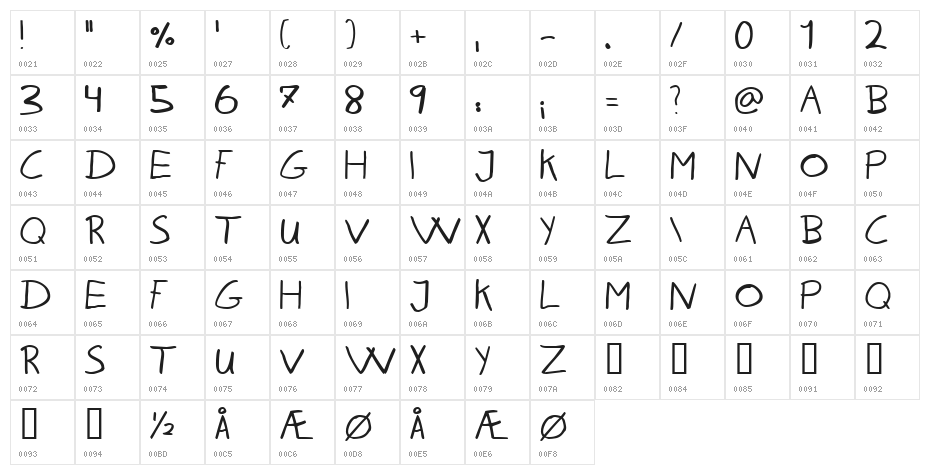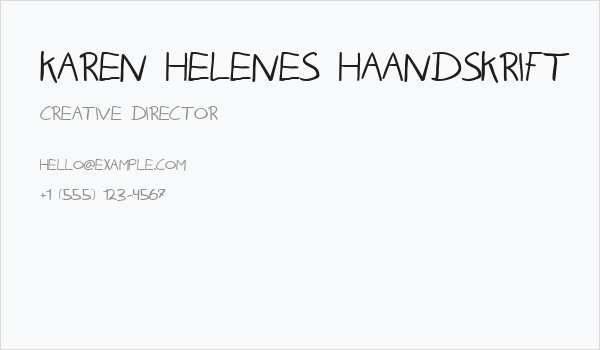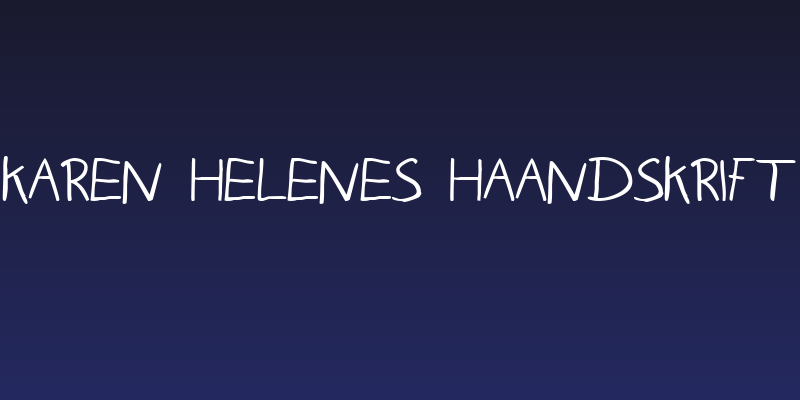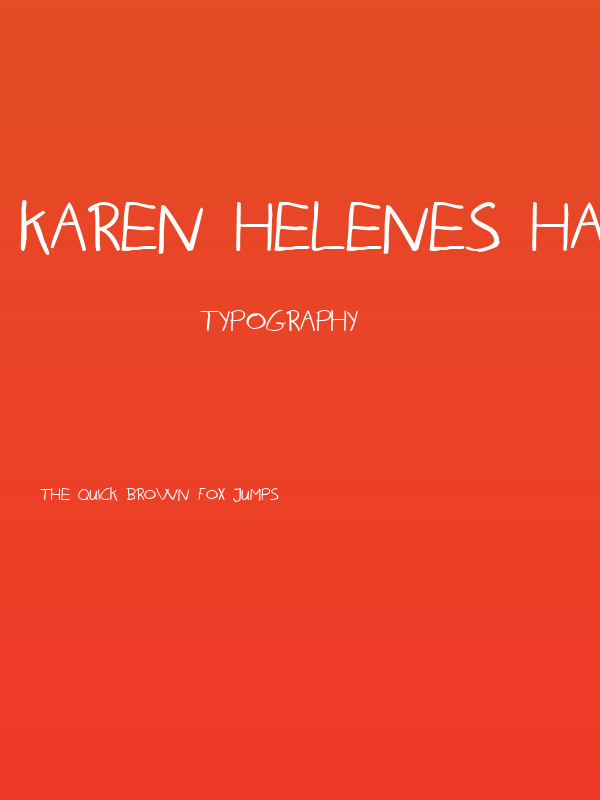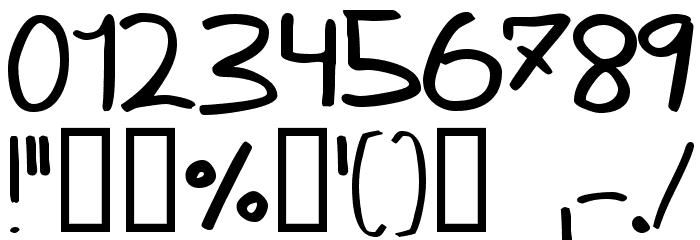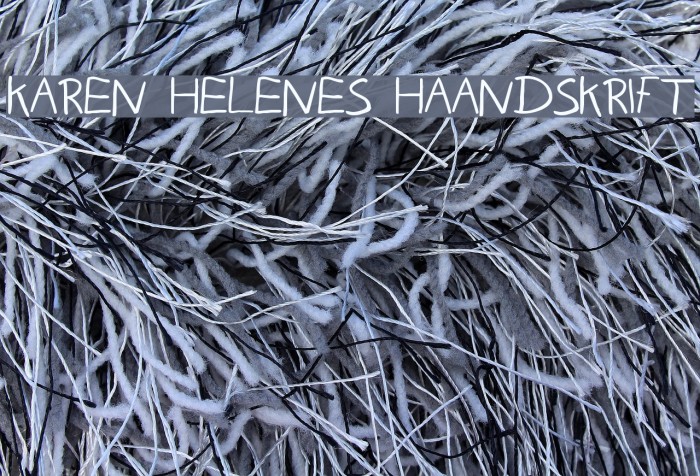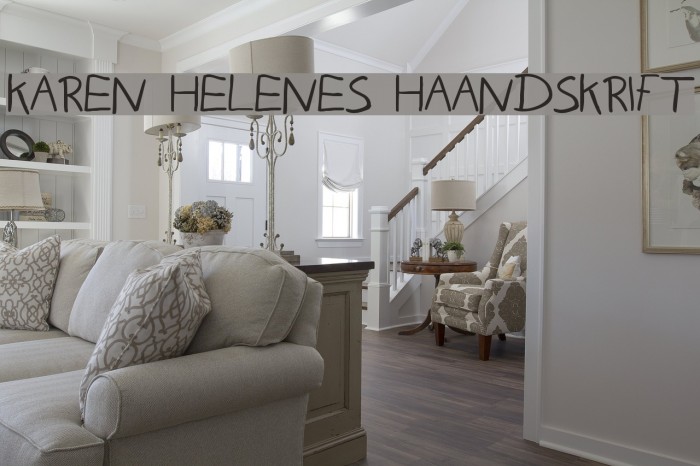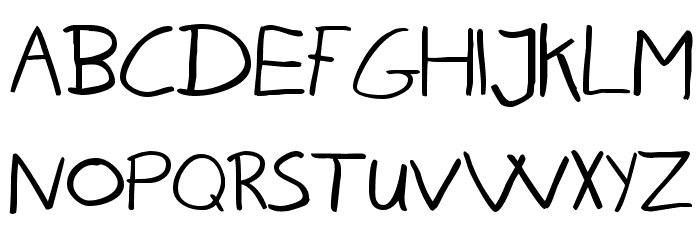
Karen Helenes haandskrift Font
Karen Helenes haandskrift Description
This font exudes a playful and casual handwritten style, characterized by its irregular strokes and slightly uneven baseline. The letters are bold and rounded, giving a friendly and approachable feel. The uppercase and lowercase letters maintain a consistent style, with a slight slant that adds to the informal appearance. The numerals are distinct and easy to read, matching the overall whimsical aesthetic. Special characters are included, maintaining the same lively and dynamic style, making this font versatile for various creative projects.
| Overall Style | Casual |
| Use Case | Headlines, Logos, Informal Text |
| Proposed Projects | Ideal for greeting cards, children's books, playful branding, and informal invitations. |